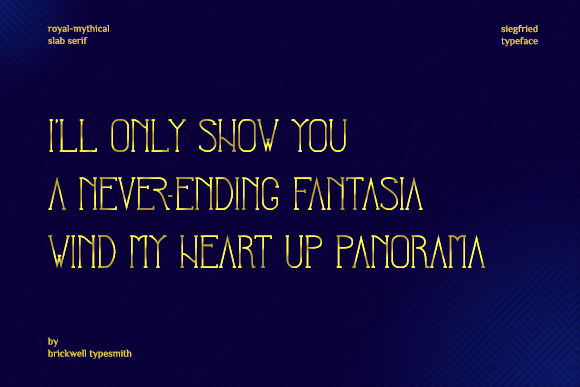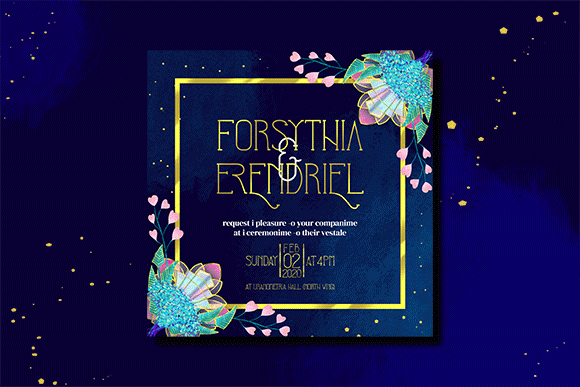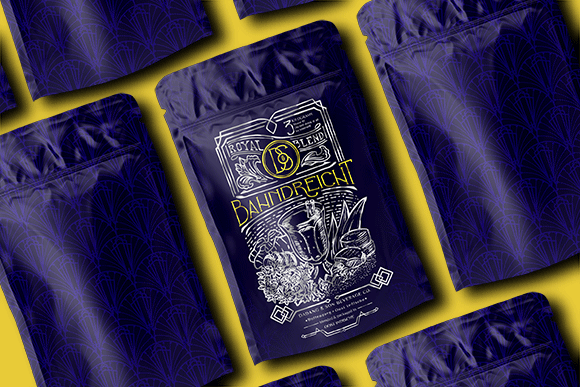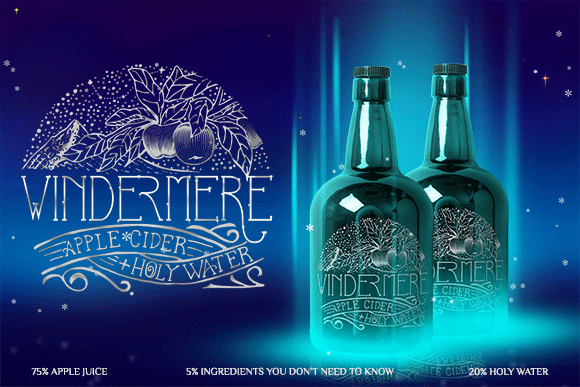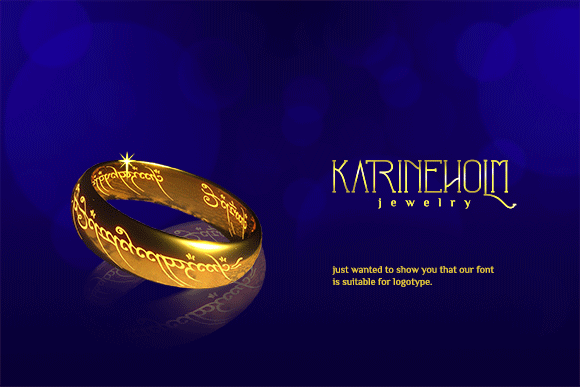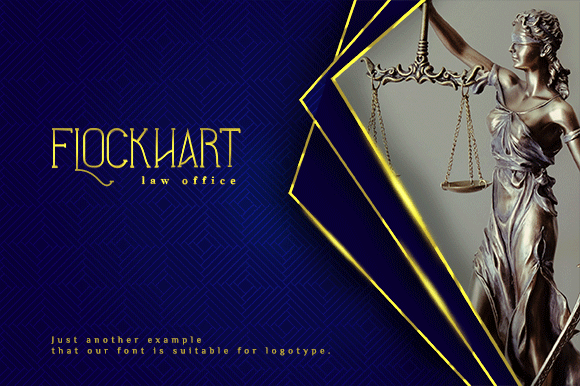
Introduction to Siegfried Font
Siegfried is a thin lettered and delicate serif font, featuring a royal-mythical vibe.
Use this font for brochure, logotype, advertising, invitation, packaging, movie title, and much more This font is PUA encoded which means you can access all glyphs and swashes with ease.